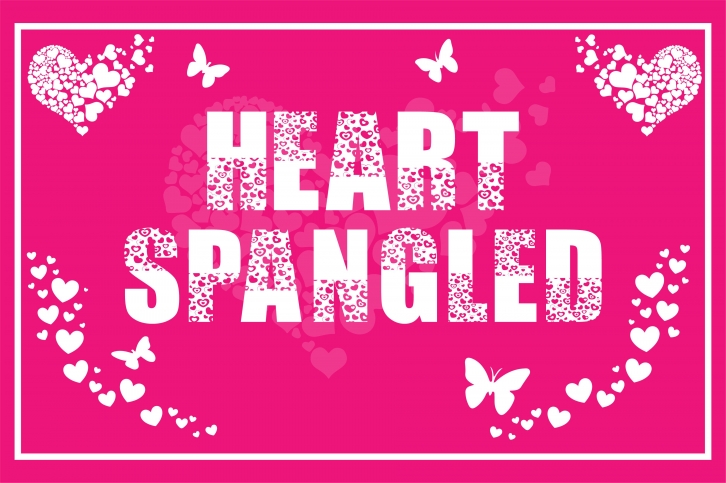
heart spangled is a bold and incredibly elegant decorative font, featuring lovely heart spangled as ornaments. This original look will appeal to a wide range of crafty ideas, from letterheads and titles to stationery.